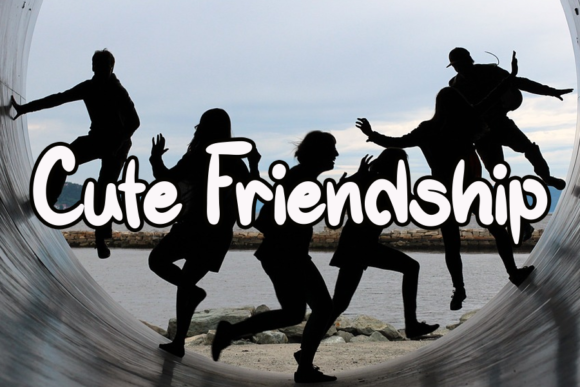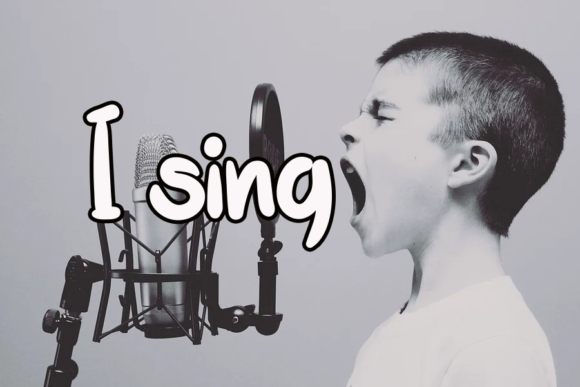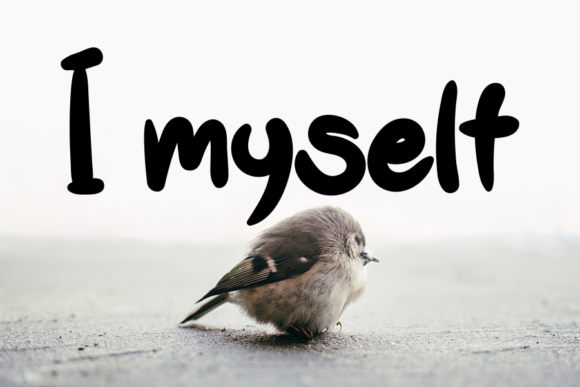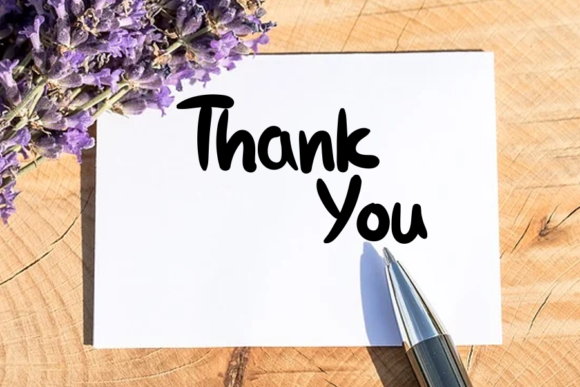
The Amusing Font: A Designer’s New Best Friend
I’ll never forget the time I was working on a project for a client who wanted a fun, playful vibe. I had all the design elements in place, but I just couldn’t find the right font to tie everything together. That’s when I stumbled upon the Amusing font, and let me tell you, it was love at first sight! 😍
This simple, relaxed, and asymmetrical handwritten font has become a staple in my design toolkit, and I’m excited to share its awesomeness with you. In this article, we’ll dive into the world of Amusing, exploring its features, how to use it, and what makes it so versatile.
What I Love About Amusing ✨
- ✅ Versatility: Amusing fits a wide range of designs, from playful crafts to elegant branding projects.
- ✅ Easy to read: The font’s clean and simple design makes it easy to read, even at smaller sizes.
- ✅ Unique personality: Amusing has a distinct, hand-crafted feel that sets it apart from more traditional fonts.
- ✅ OpenType features: Amusing supports OpenType features, including glyphs and stylistic alternates, giving you plenty of creative options.
While Amusing is an amazing font, it’s not perfect. Here are a few things to keep in mind:
- ⚠️ Limited formal applications: Amusing is a casual font, so it might not be the best fit for super formal or corporate designs.
- ⚠️ Some letters may require adjustment: Depending on the word or phrase, you might need to adjust letter spacing to get the perfect look.
One of the best things about Amusing is its support for OpenType features and glyphs. These features allow you to customize your text and add a personal touch to your designs.
The Story Behind Amusing
Amusing was designed by a talented typographer who wanted to create a font that was both fun and functional. The designer’s goal was to craft a font that would add a personal touch to any design project, without being too over-the-top or distracting.
After months of tweaking and refining, Amusing was born. Today, it’s a beloved font among designers and crafters, and it’s easy to see why.
Q: What makes Amusing so versatile?
A: Amusing’s simple, relaxed design and support for OpenType features make it a great fit for a wide range of designs, from playful crafts to elegant branding projects.
Q: Is Amusing easy to read?
A: Absolutely! Amusing is designed to be easy to read, even at smaller sizes.